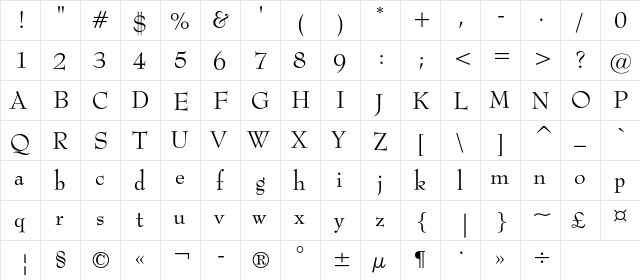
Metropol Normal Regular
Design Context for Metropol Normal Typeface
Metropol Normal takes a measured approach to typography — its balanced proportions and neutral character make it a reliable workhorse for both digital and print work.
Originally released in 1993, this typeface is available in OpenType (OTF) format.